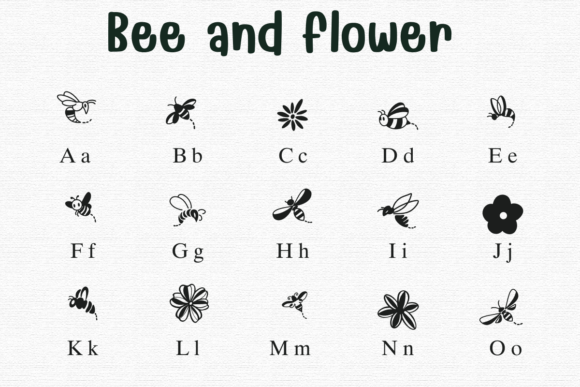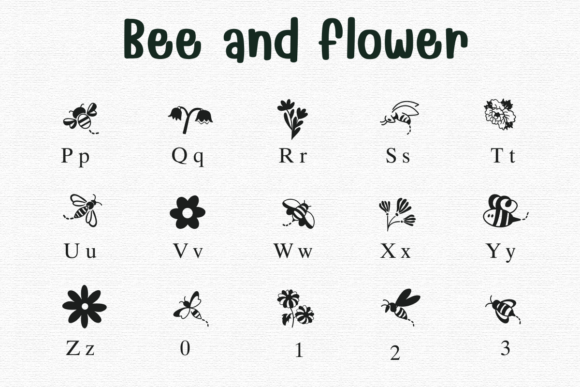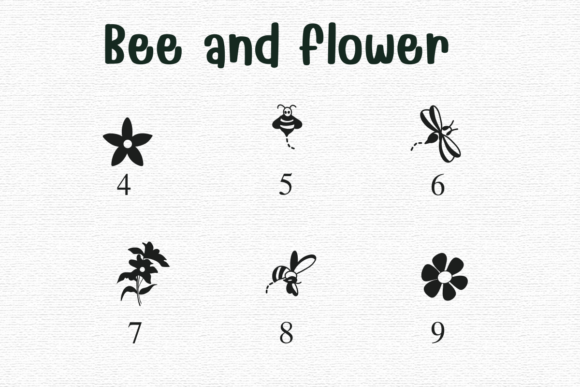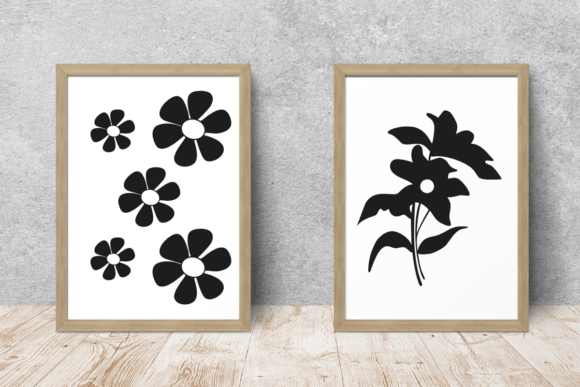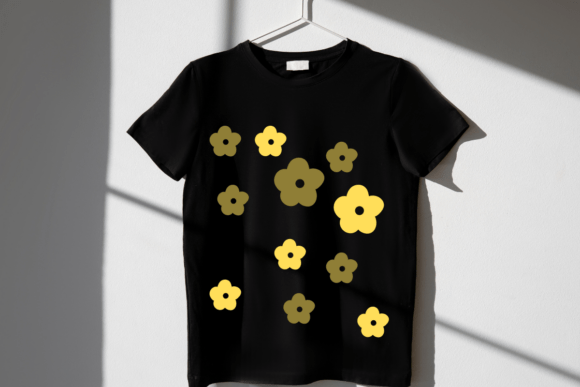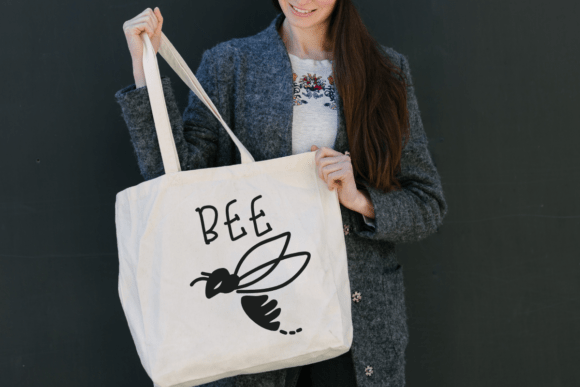
Bee and Flower Font: A Whimsical Addition to Your Design Collection
Are you a designer or crafter looking for a unique and playful font to add a touch of nature to your projects? Look no further than the Bee and Flower Font, a charming set of dingbats that combines buzzing bees with blooming florals. This delightful font is perfect for creating garden-themed designs, eco-friendly packaging, and playful invitations that require a fresh and friendly aesthetic.
What is Bee and Flower Font?
Bee and Flower Font is a whimsical dingbat font that features a collection of adorable bees and beautiful flowers. The font is designed to bring a sense of joy and playfulness to your designs, making it ideal for projects that require a lighthearted and carefree touch. With its unique and eye-catching characters, this font is sure to make your designs stand out from the crowd.
Perfect for Nature-Inspired Designs
Whether you’re creating designs for a gardening company, a florist, or an eco-friendly brand, the Bee and Flower Font is the perfect choice. The font’s nature-inspired characters will add a touch of whimsy and charm to your designs, making them perfect for a wide range of applications, including:
- Garden-themed projects, such as gardening catalogs, plant labels, and garden party invitations
- Eco-friendly packaging, such as labels, stickers, and product packaging
- Playful invitations, such as birthday party invitations, baby shower invitations, and outdoor event invitations
Key Features of Bee and Flower Font
The Bee and Flower Font has several key features that make it a great addition to your design collection:
- Whimsical characters: The font features a range of adorable bees and beautiful flowers, each carefully designed to bring a sense of joy and playfulness to your designs
- Scalable: The font is scalable, making it perfect for use in a wide range of designs, from business cards to billboards
- Unique: The font’s unique characters will add a touch of personality to your designs, making them stand out from the crowd
- Choose your characters: Browse through the font’s characters and choose the ones that best fit your design
- Experiment with different sizes and colors: Experiment with different sizes and colors to add depth and interest to your designs
- Combine with other fonts: Combine the Bee and Flower Font with other fonts to create a unique and eye-catching design
Here are a few tips and inspiration ideas to help you get the most out of the Bee and Flower Font:
- Use in combination with natural textures: Combine the font with natural textures, such as wood, stone, or paper, to add a tactile feel to your designs
- Experiment with watercolor backgrounds: Experiment with watercolor backgrounds to create a soft, dreamy effect
- Use in eco-friendly branding: Use the font in eco-friendly branding, such as logos, packaging, and marketing materials
The Bee and Flower Font is a charming and whimsical addition to any design collection. With its adorable bees and beautiful flowers, this font is perfect for creating garden-themed designs, eco-friendly packaging, and playful invitations. Whether you’re a designer or crafter, this font is sure to bring a touch of joy and playfulness to your projects. So why not give it a try and see what amazing designs you can create?